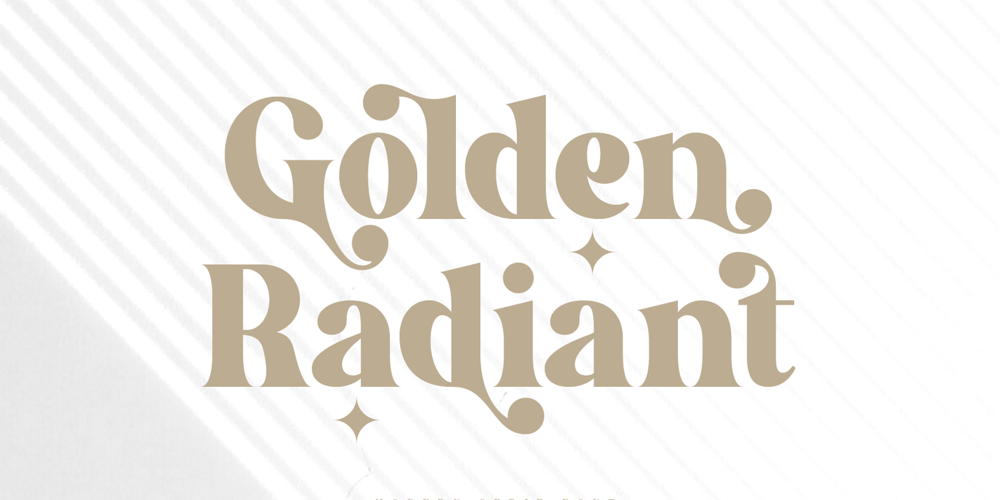
Golden Radiant Font Family was designed by Revo Farsiky and published by Pen Culture. Golden Radiant contains 1 styles and family package options. Proudly present Golden Radiant – Modern Serif FontGolden radiant is a modern serif font with an elegant curve in each letter and also alternates. This font perfect for all kinds of design projects such as branding, logo design, magazine, poster, invitation and many more.This font come with elegant uppercase and lowercase letter, number and punctuation, 60 elegant alternate. This font is PUA Encoded and multilingual support.I really hope you enjoy it – please do let me know what you think, comments & likes are always hugely welcomed and appreciated. More importantly, please don’t hesitate to drop me a message if you have any issues or queries.Thank you